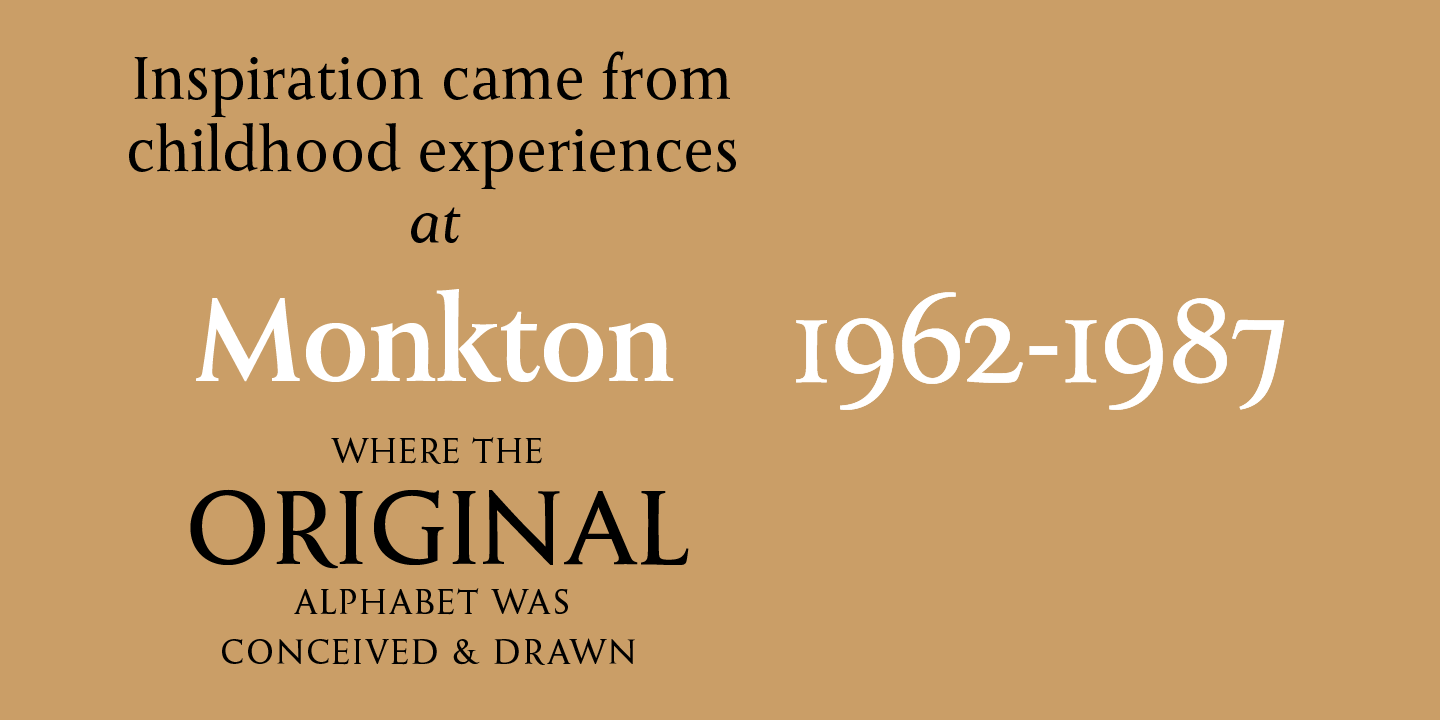
Monkton Font is perfect for editorial design, book covers, formal invitations, and corporate branding. Its classic serif style, inspired by historical typography, excels in print media, logos, and professional documents.
Why is Monkton Font exciting? Its elegant, strong strokes and traditional aesthetic bring a timeless sophistication, making your designs both refined and impactful.
The Monkton Font family includes styles like Regular, Bold, Italic, Book, Medium, News, Incised, and Aged, offering versatility for various design needs.
Transform your projects with Monkton Font Free Download today. This typeface delivers a polished, classic look, ideal for creating sophisticated visuals. Whether for print or digital, Monkton Font ensures your work exudes elegance and authority. Its well-defined serifs and balanced proportions make it a top choice for designers seeking a professional, traditional vibe. Download Monkton Font Free Download now to explore its potential and enhance your creative projects.